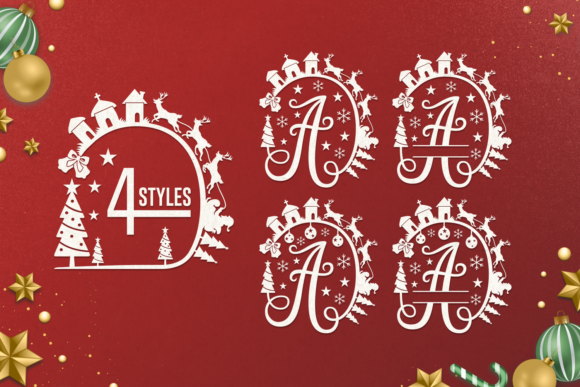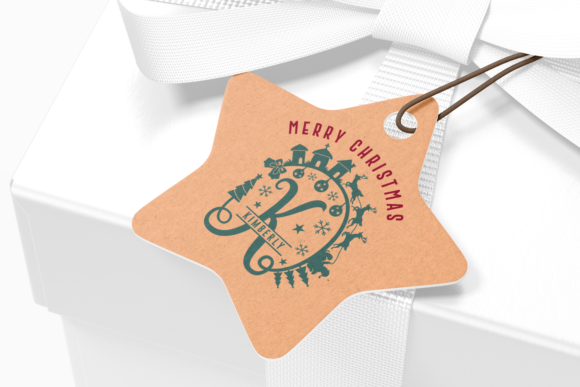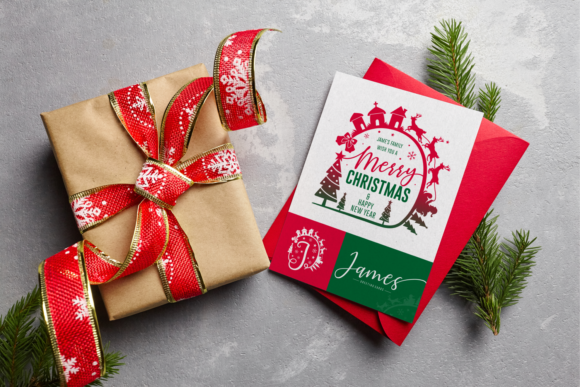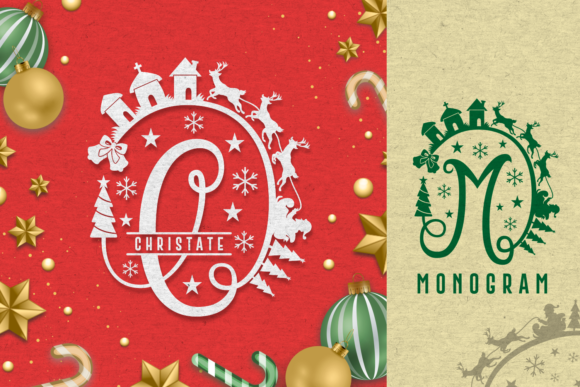
Introducing Christate Font: Add a Touch of Whimsy to Your Winter Designs
As the winter season approaches, designers and crafters are on the lookout for fonts that can add a touch of magic to their projects. If you’re searching for a font that exudes warmth, festivity, and playfulness, look no further than Christate Font. This dainty and decorative font is perfect for creating stunning winter letters, invitations, and designs that will leave your audience mesmerized.
The Charm of Christate Font
Christate Font is a beautiful, hand-crafted font that boasts a unique and whimsical style. Its delicate lines, intricate details, and elegant swashes make it an ideal choice for designers and crafters who want to add a personal touch to their projects. Whether you’re creating winter-themed invitations, holiday cards, or festive decorations, Christate Font is sure to impress.
Key Features of Christate Font
- PUA Encoded: Christate Font is PUA (Private Use Area) encoded, which means you can access all glyphs and swashes with ease. This feature makes it simple to use the font in your designs, even if you’re not a professional typographer.
- Dainty and Festive: Christate Font has a delicate, festive look that’s perfect for winter designs. Its intricate details and elegant swashes add a touch of sophistication to any project.
- Versatile: Christate Font can be used for a wide range of projects, from invitations and holiday cards to decorations and social media graphics.
Ideas for Using Christate Font
Christate Font is a versatile font that can be used in a variety of projects. Here are some ideas to get you started:
- Winter Invitations: Use Christate Font to create beautiful, festive invitations for holiday parties, weddings, and other special events.
- Holiday Cards: Add a personal touch to your holiday cards with Christate Font. Create stunning designs that will make your loved ones feel special.
- Festive Decorations: Use Christate Font to create festive decorations, such as garlands, banners, and signs. Add a touch of whimsy to your holiday decor with this beautiful font.
- Social Media Graphics: Create stunning social media graphics with Christate Font. Share your favorite holiday designs with friends and family on social media.
Tips for Getting the Most Out of Christate Font
To get the most out of Christate Font, here are some tips to keep in mind:
- Experiment with Different Sizes: Christate Font looks great in a variety of sizes. Experiment with different sizes to find the one that works best for your project.
- Pair with Other Fonts: Christate Font pairs well with other fonts, such as serif and sans-serif fonts. Experiment with different font combinations to create unique and interesting designs.
- Use Swashes and Glyphs: Christate Font comes with a range of swashes and glyphs that can add a touch of elegance to your designs. Experiment with different swashes and glyphs to create unique and interesting designs.
Christate Font is a beautiful, dainty, and festive decorative font that’s perfect for winter designs. Its unique and whimsical style, combined with its PUA encoding, makes it an ideal choice for designers and crafters who want to add a personal touch to their projects. With its versatility, ease of use, and range of features, Christate Font is sure to become a favorite in your design arsenal. So why wait? Download Christate Font today and start creating stunning winter designs that will leave your audience mesmerized.